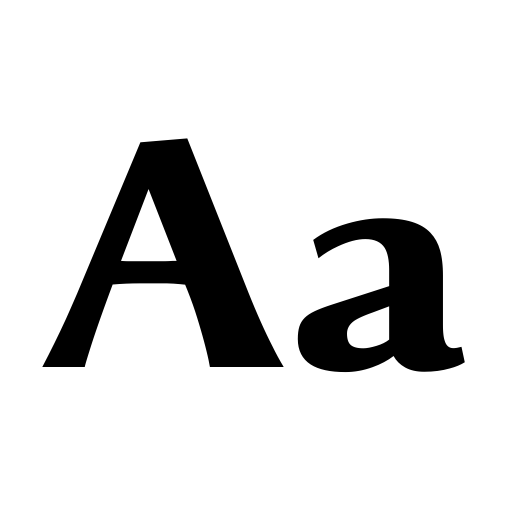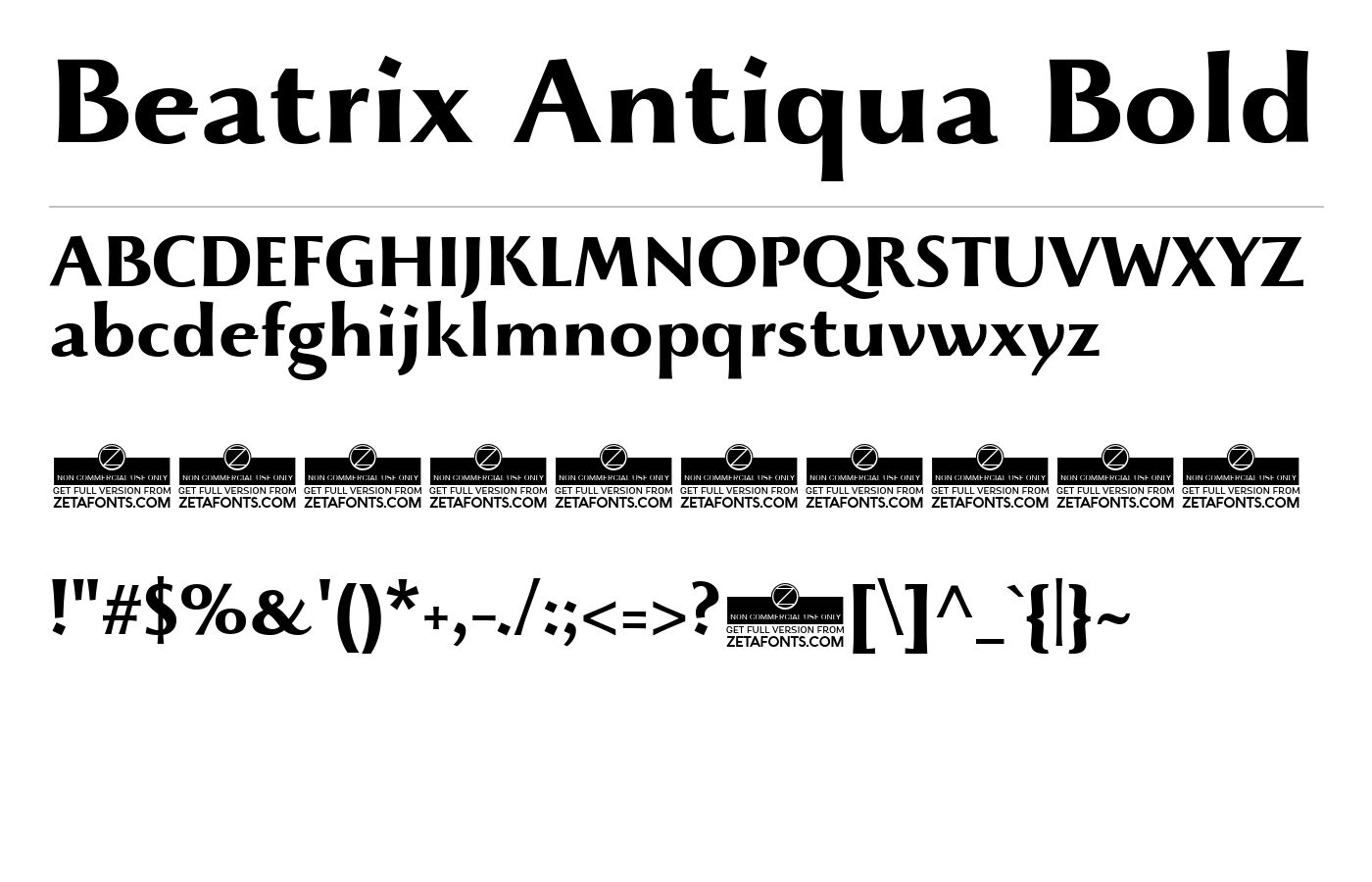
Beatrix Antiqua Bold is a distinctive serif font with a strong, bold weight and a classic yet slightly quirky personality. Its medium contrast strokes and sharp, bracketed serifs give it a confident and sophisticated look, while unique letterforms add a touch of creativity, making it ideal for eye-catching headlines, logos, and editorial designs that require a blend of tradition and character. This font works well in branding and print materials where a bold and elegant presence is desired.
Beatrix Antiqua Font
About Beatrix Antiqua Font
| Designer | Francesco Canovaro |